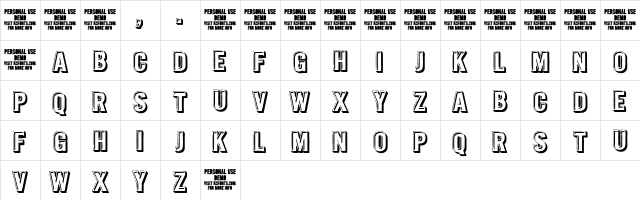
Intaglio DEMO Regular Free Font
Intaglio DEMO Regular
Foundry: Kevin Christopher
Designer: Kevin Christopher
Design Context for Intaglio DEMO
Intaglio DEMO is a composed and adaptable typeface that performs quietly and consistently across a wide range of design contexts.
Who designed the Intaglio DEMO Regular font?